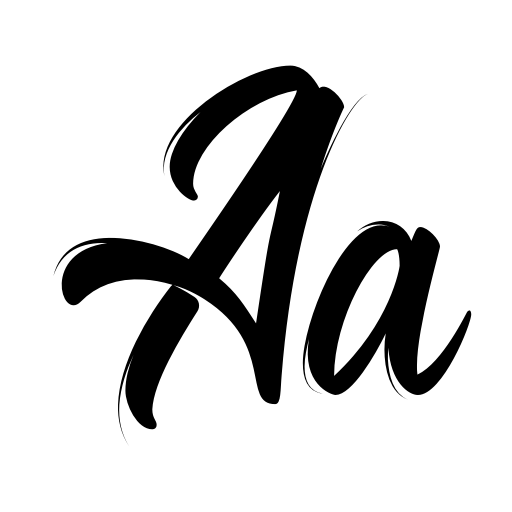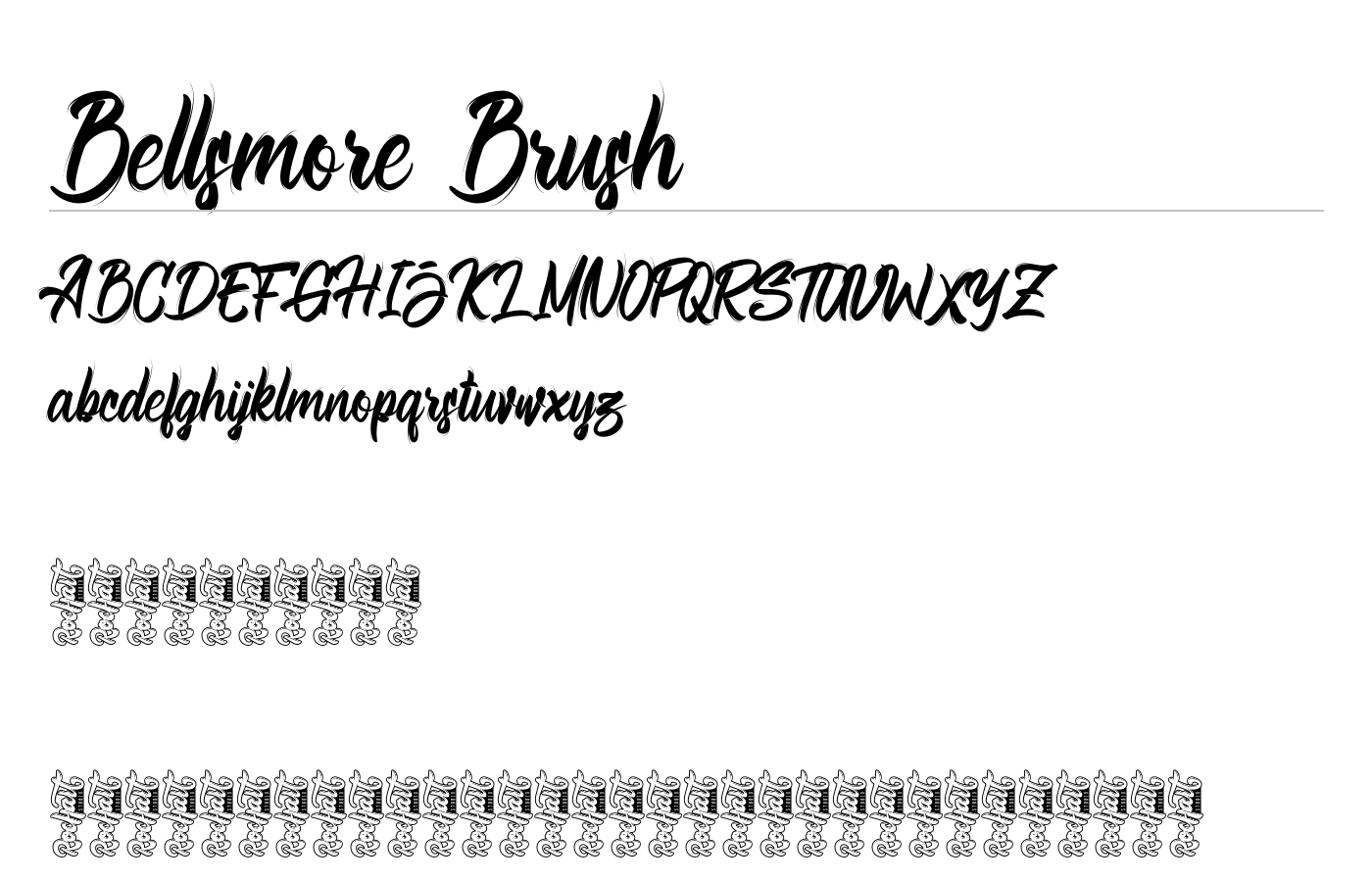
Bellsmore Brush is a lively and expressive script font with a bold, brushstroke texture that feels hand-painted and dynamic. Its smooth curves, moderate contrast, and fluid strokes give it a modern, artistic vibe perfect for creative branding, eye-catching headlines, and playful designs. This font works well in contexts where a personal, energetic touch is desired, such as logos, invitations, and packaging that aim to stand out with personality.
Bellsmore Brush Font
About Bellsmore Brush Font
| Font family | Bellsmore Brush Font |